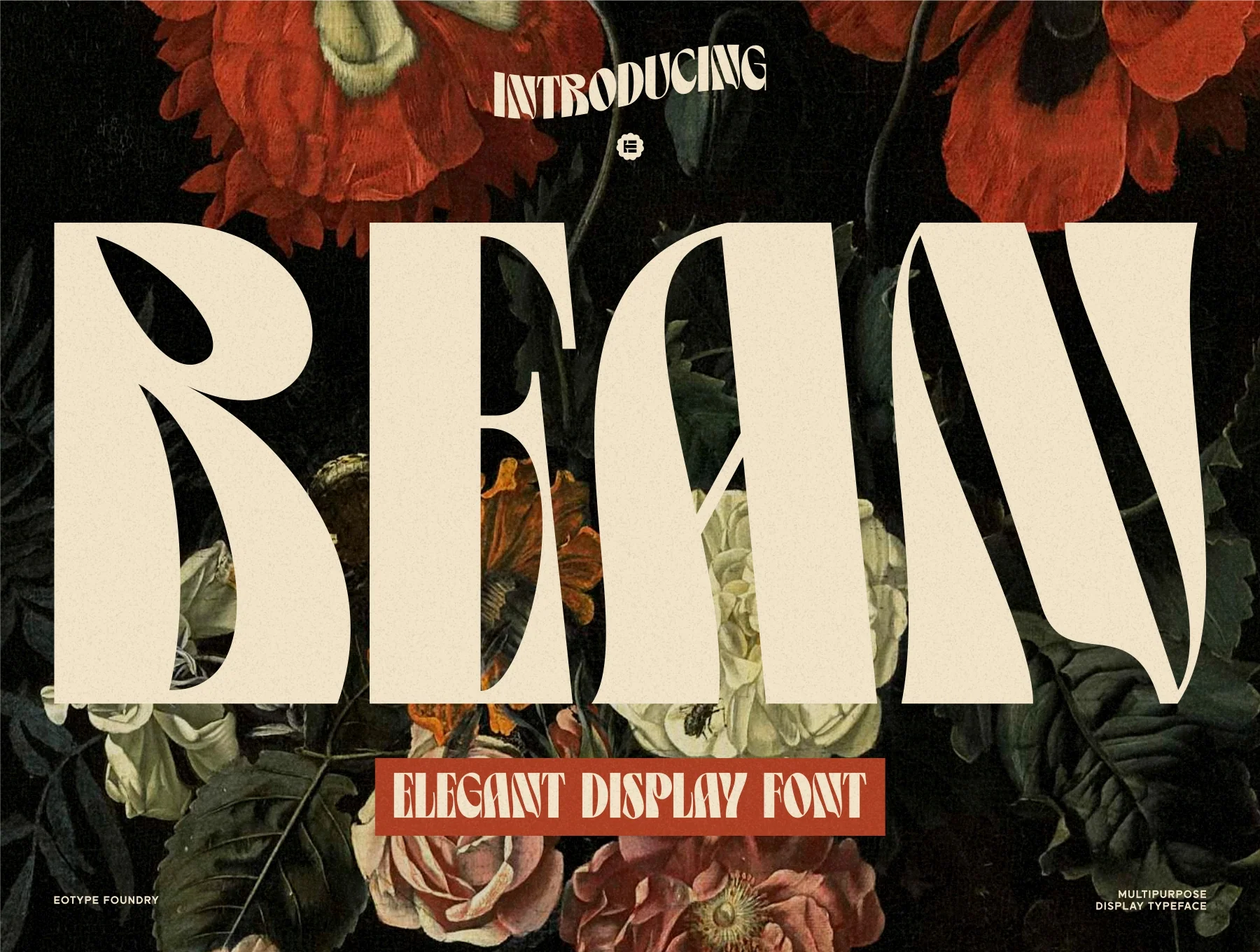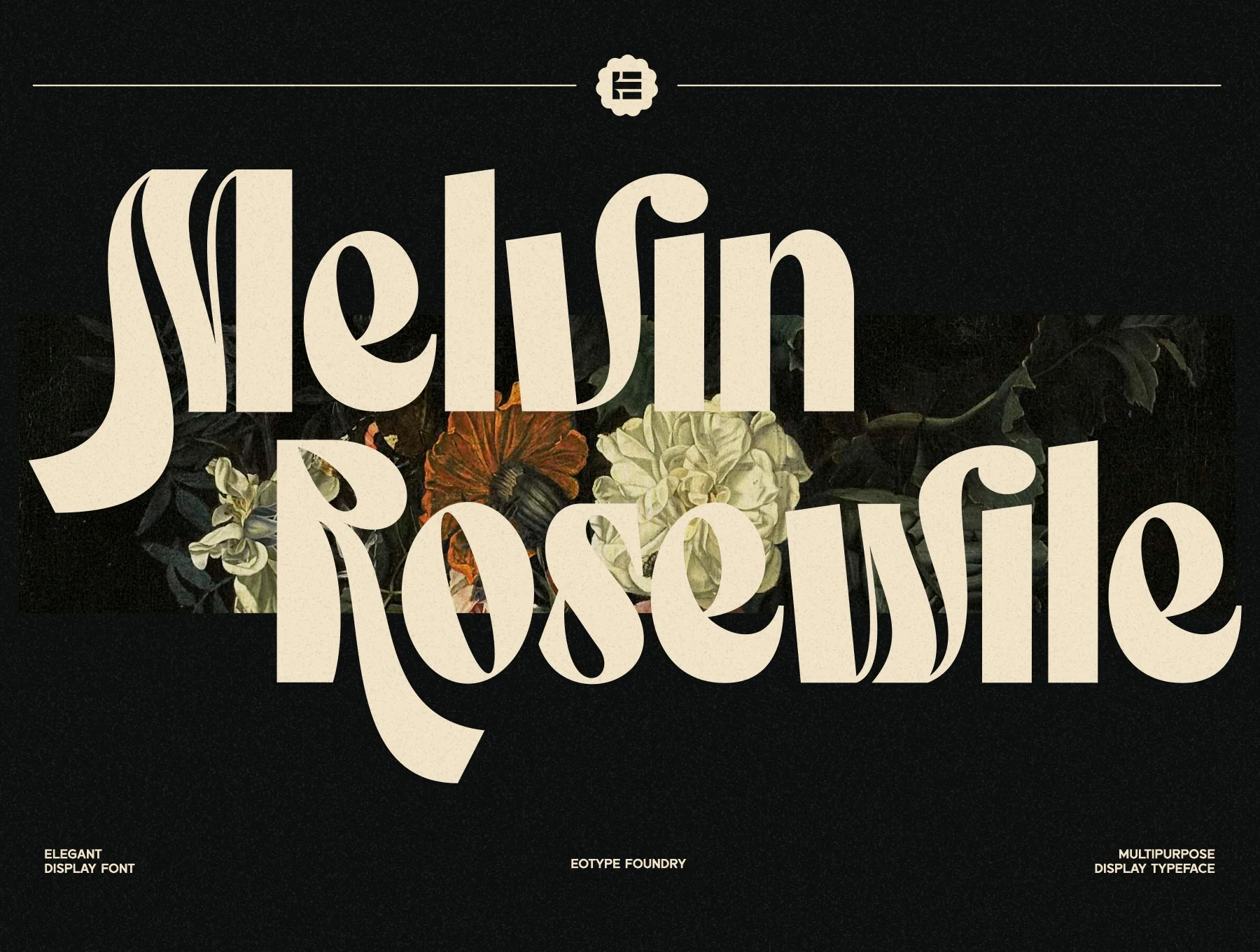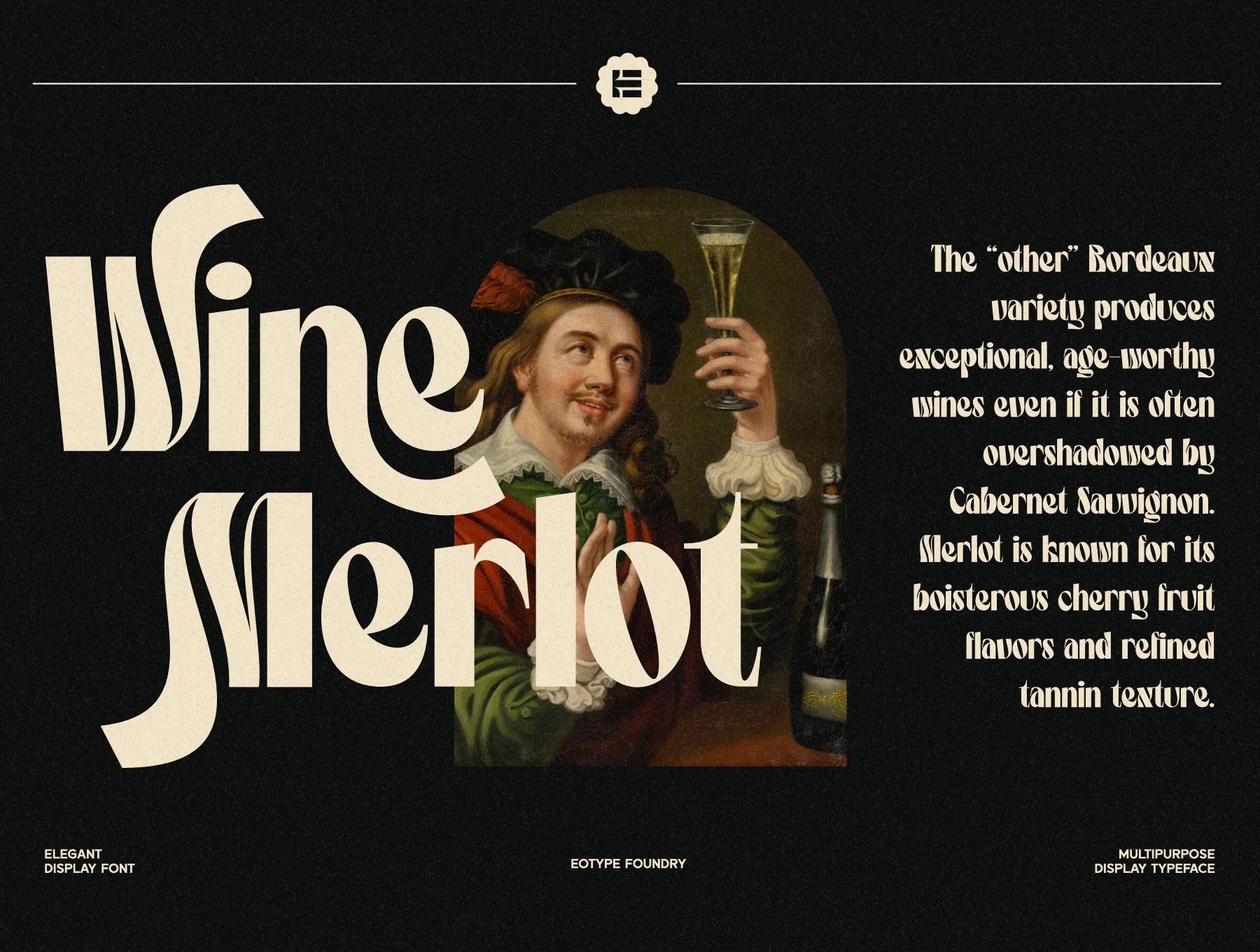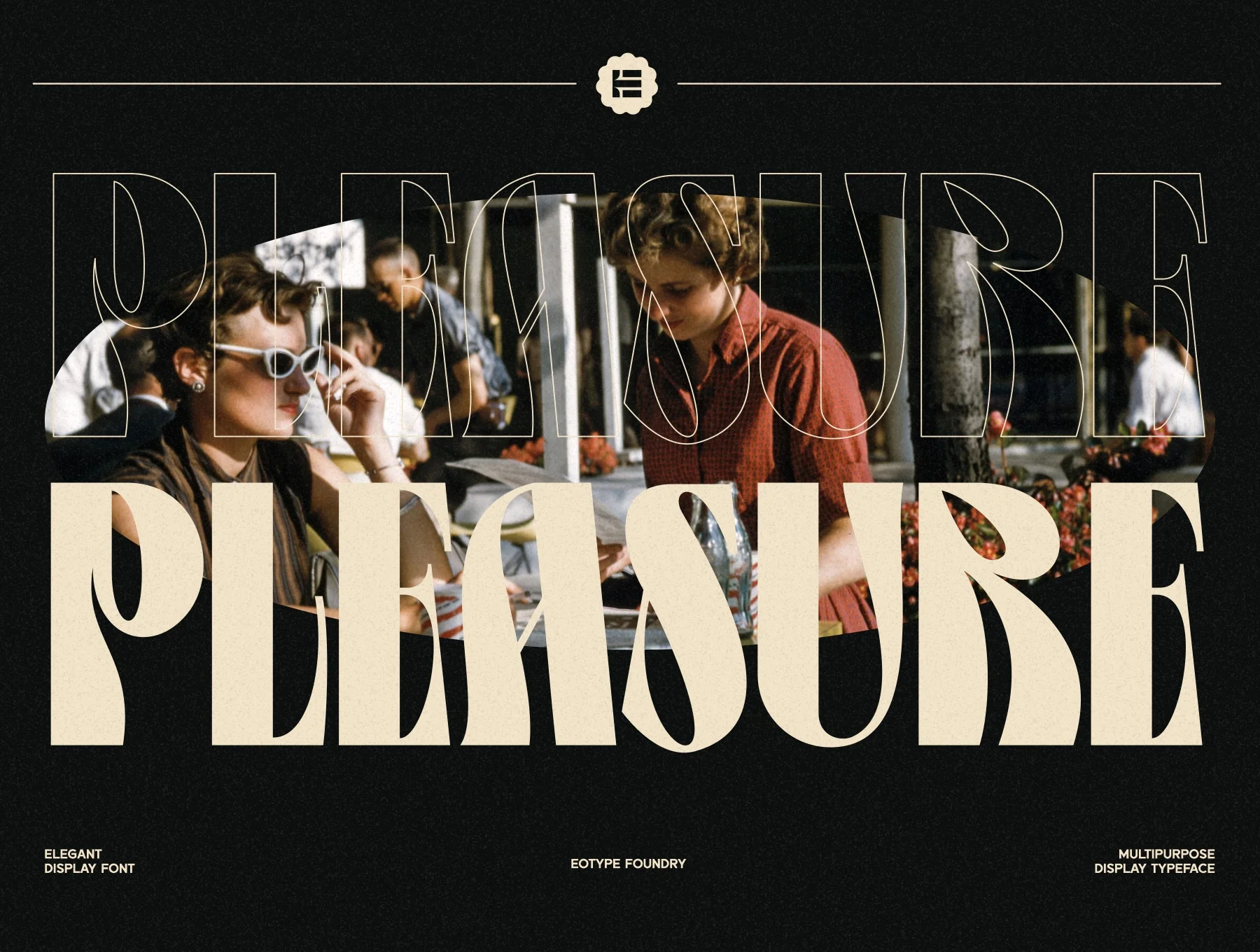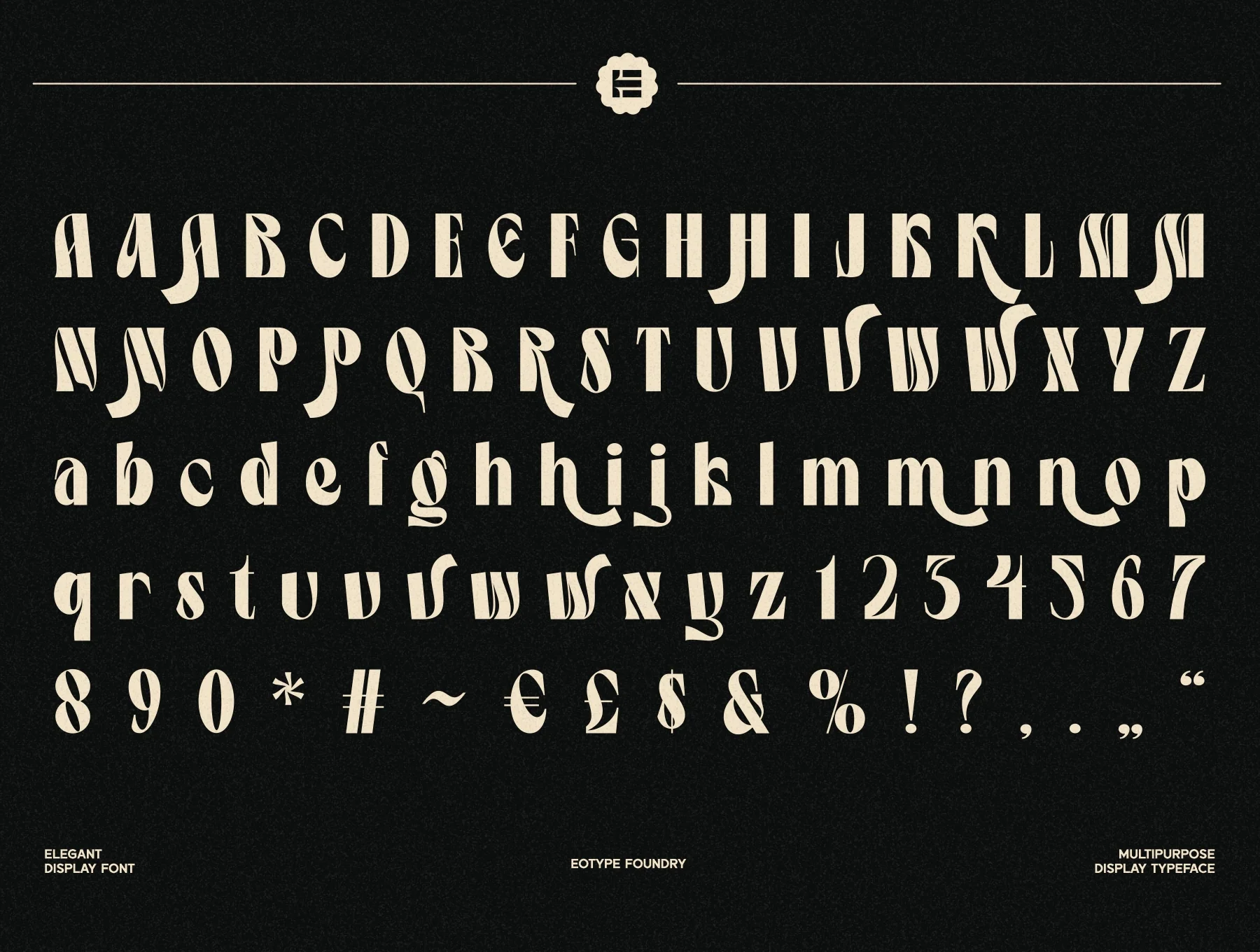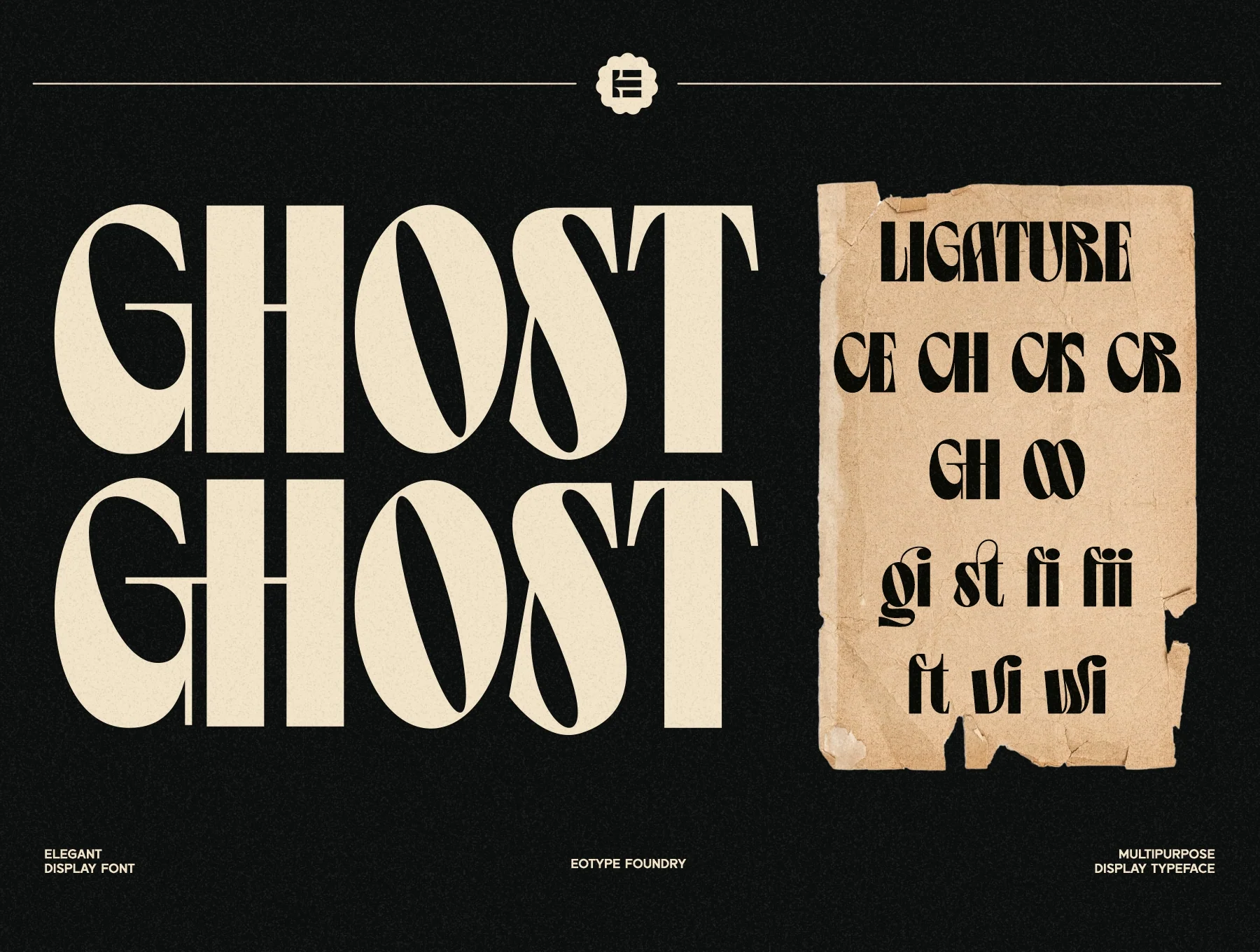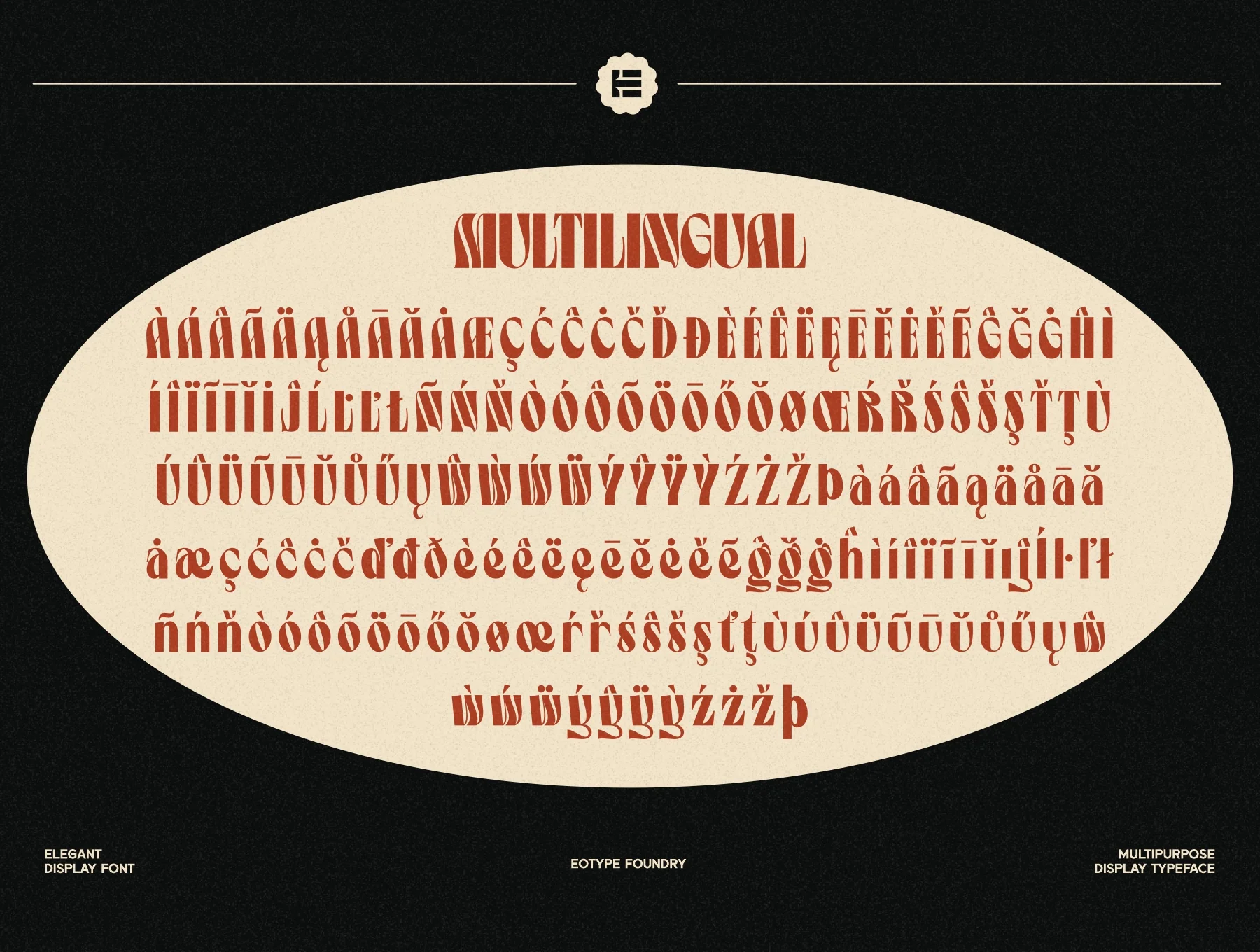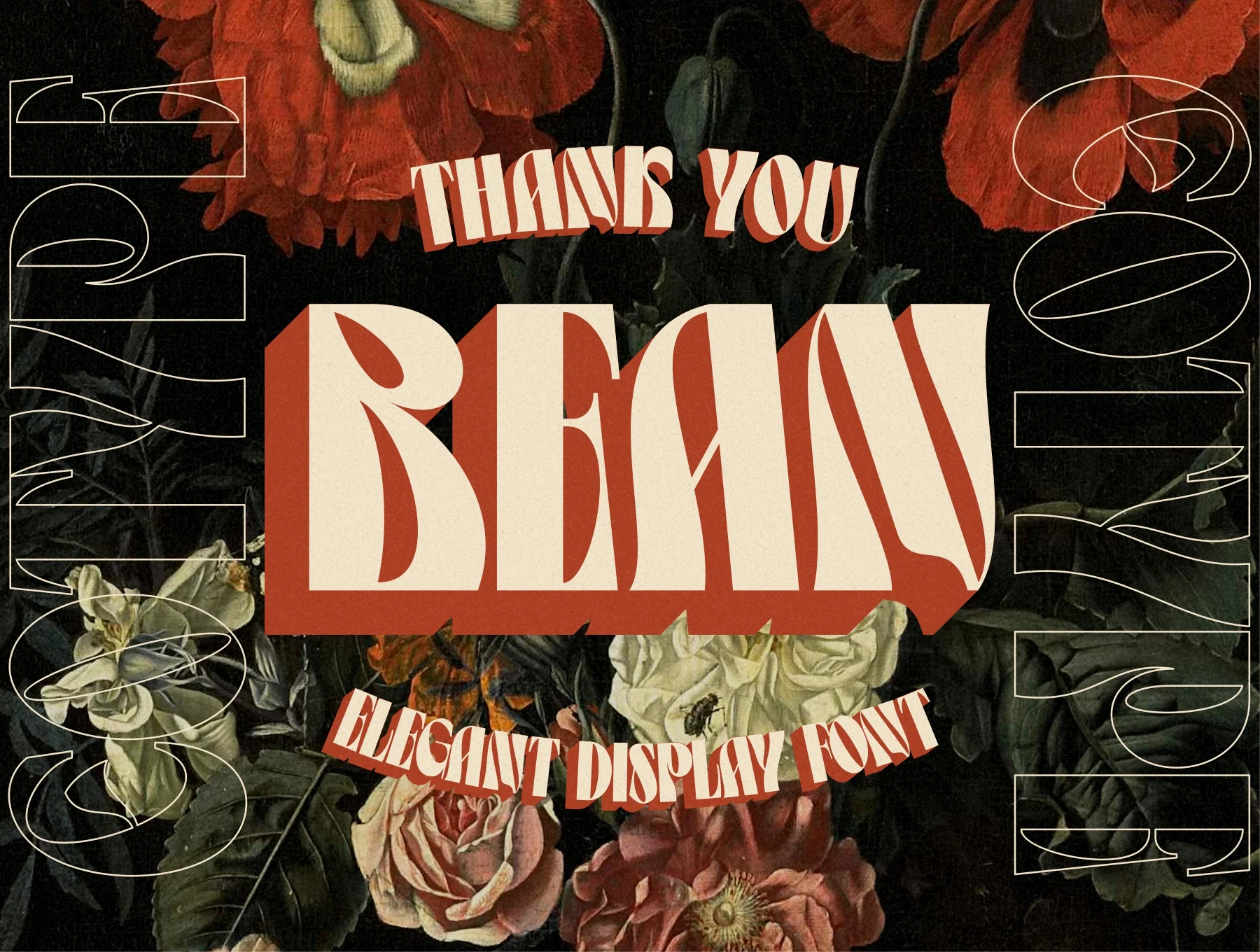
Bean - Display Typeface
Bean - Refined Display Font
Basic Glyph
Numbers & Symbols
Standard Weight
Style Variants & Ligature Forms
Bean is a distinctive retro condensed display typeface with bold weight and exceptional curved details. Ideal for modern vintage designs, it works well for posters, banners, logos, headlines, and other projects. It includes alternates, ligatures, and multilingual support.